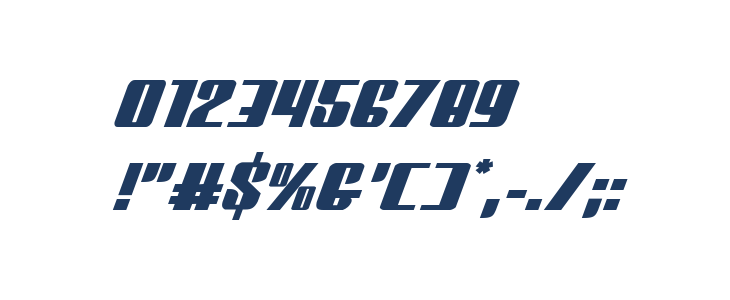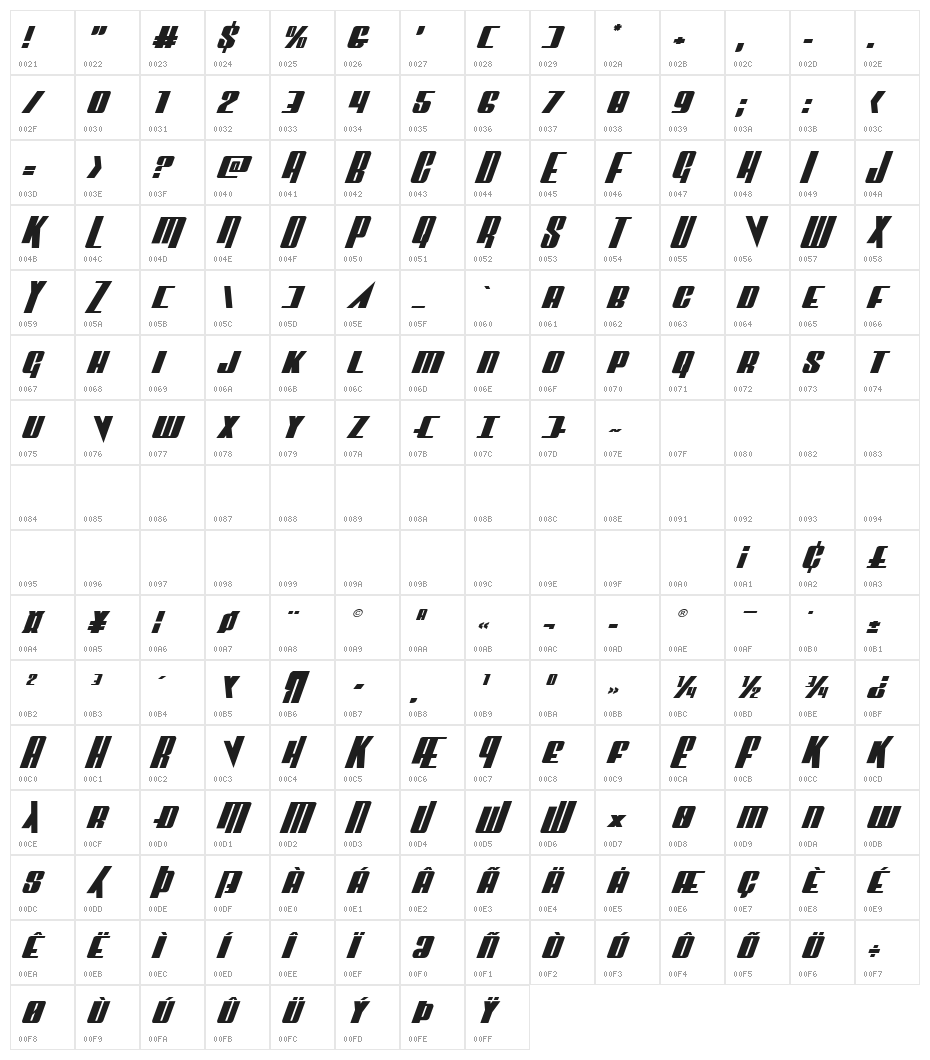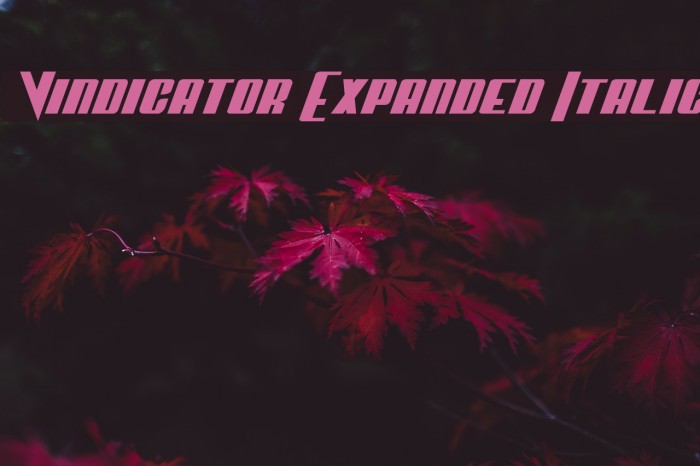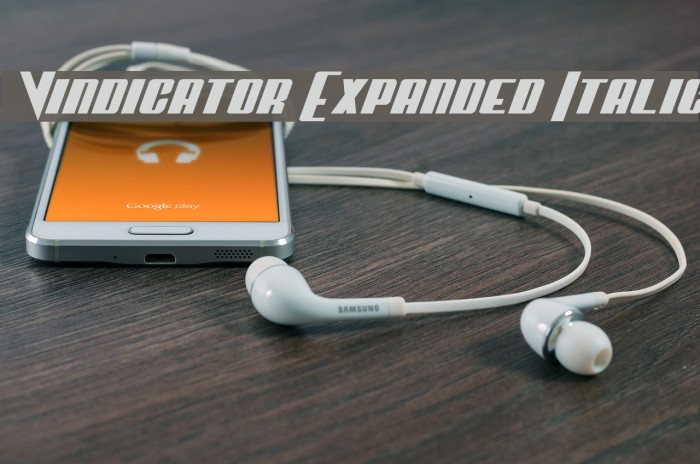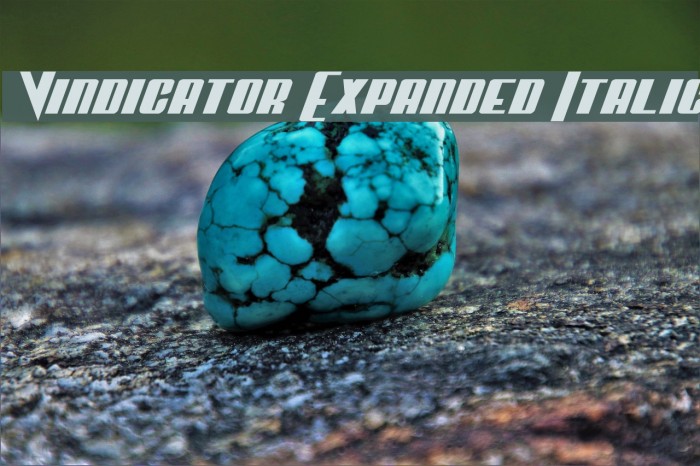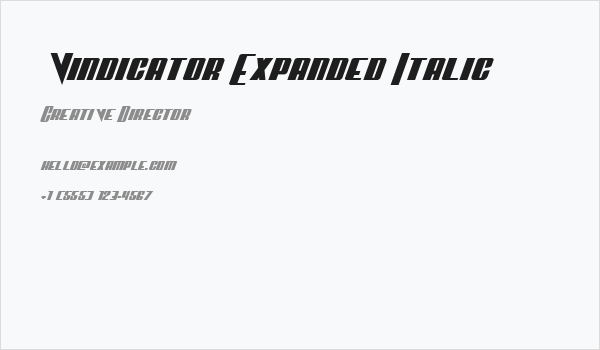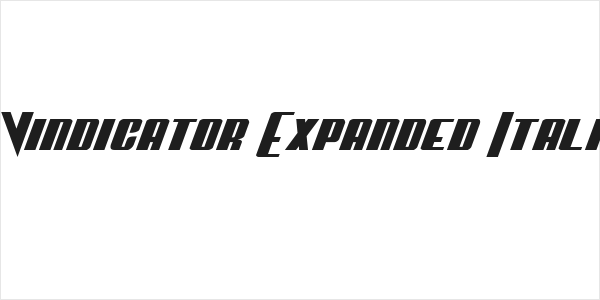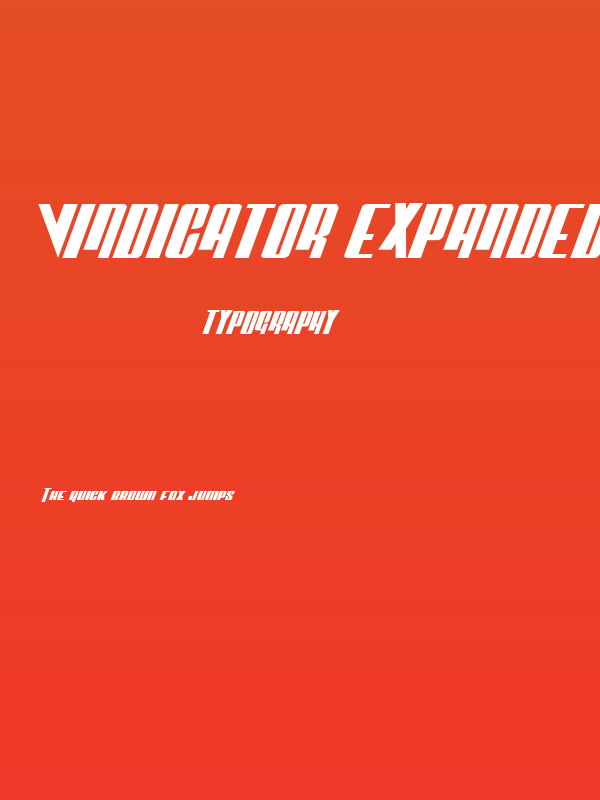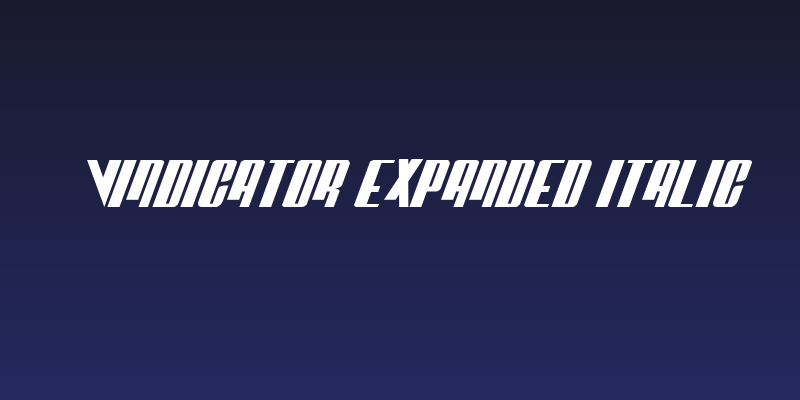
Vindicator Expanded Italic Font
Vindicator Expanded Italic Description
This font features a bold and dynamic style with an expanded width and italicized slant, giving it a sense of motion and energy. The characters are designed with sharp angles and a geometric structure, creating a modern and futuristic appearance. The uppercase letters are particularly striking, with a strong presence that commands attention. The numerals and special characters maintain the same bold and angular design, ensuring consistency across all elements. The font's expanded width allows for a unique visual impact, making it suitable for projects that require a standout display typeface.
| Proposed Projects | Ideal for sports branding, futuristic designs, posters, and headlines that need a strong visual impact. |